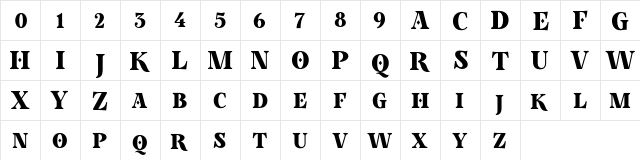
Poker In October Demo
Design Context for Poker In October Typeface
Poker In October is a composed and adaptable typeface that performs quietly and consistently across a wide range of design contexts.